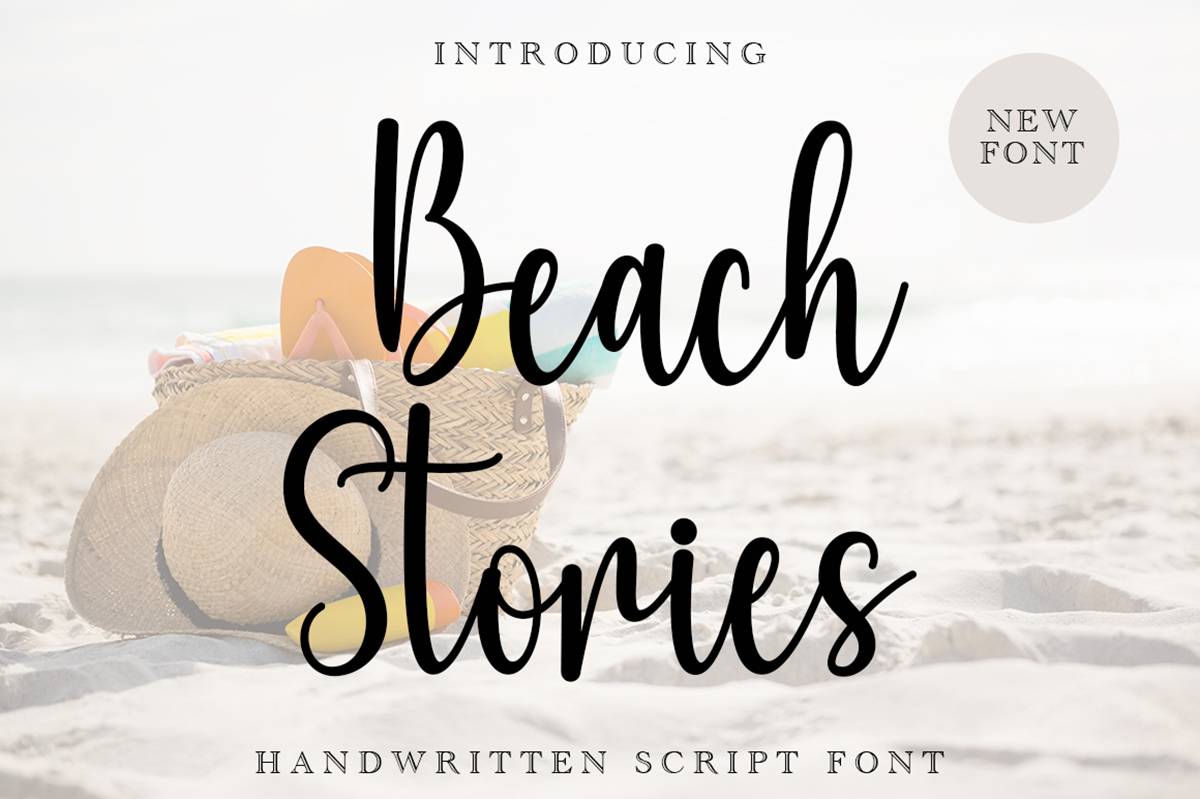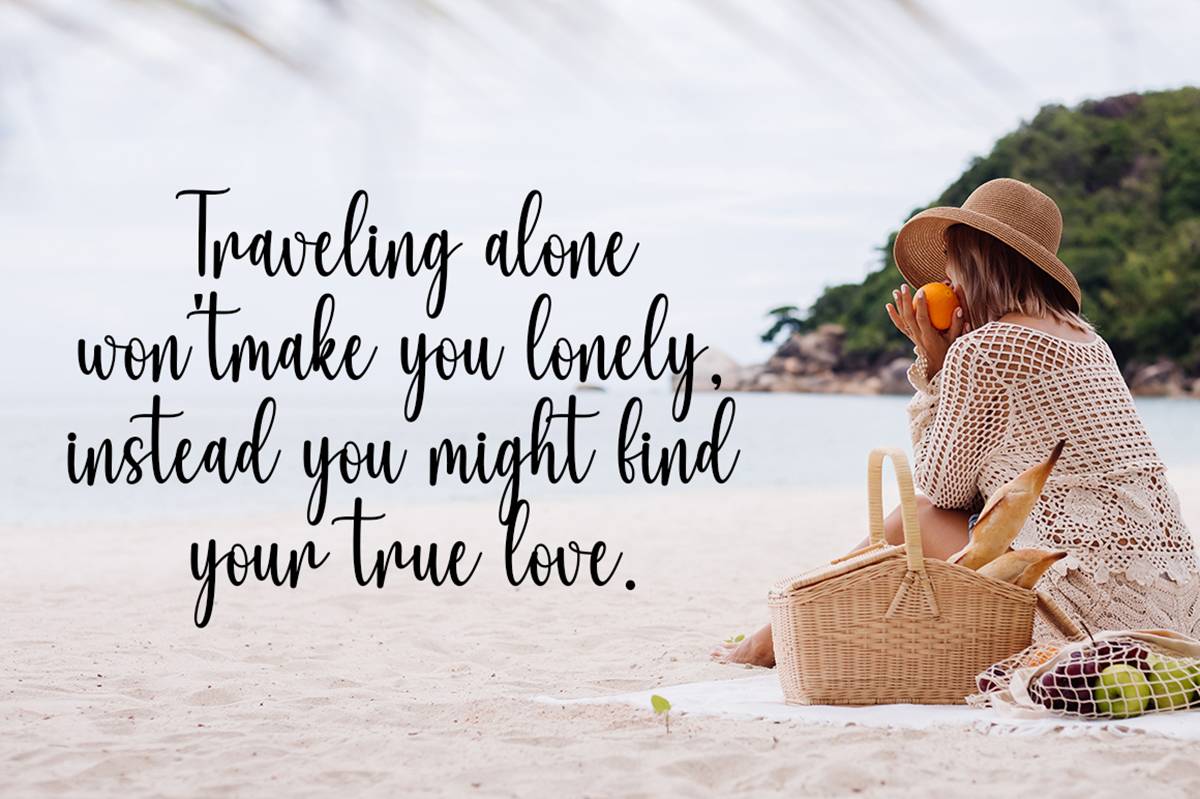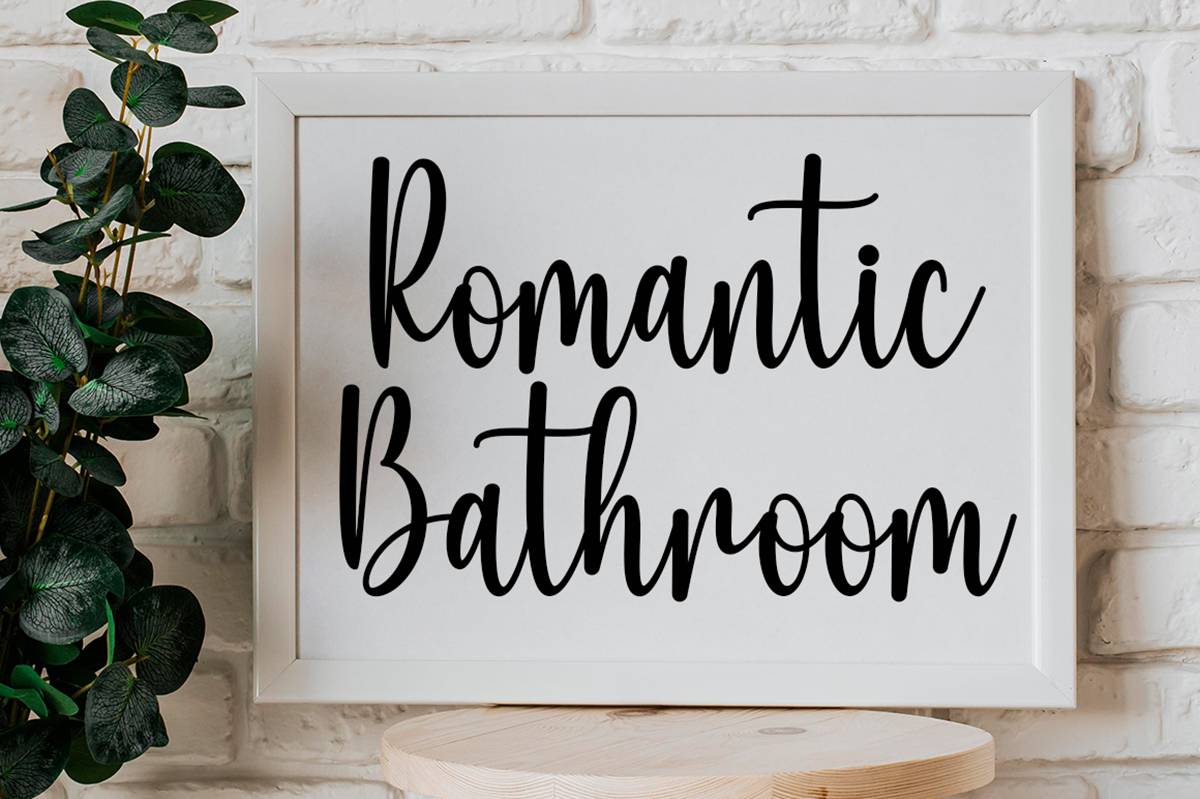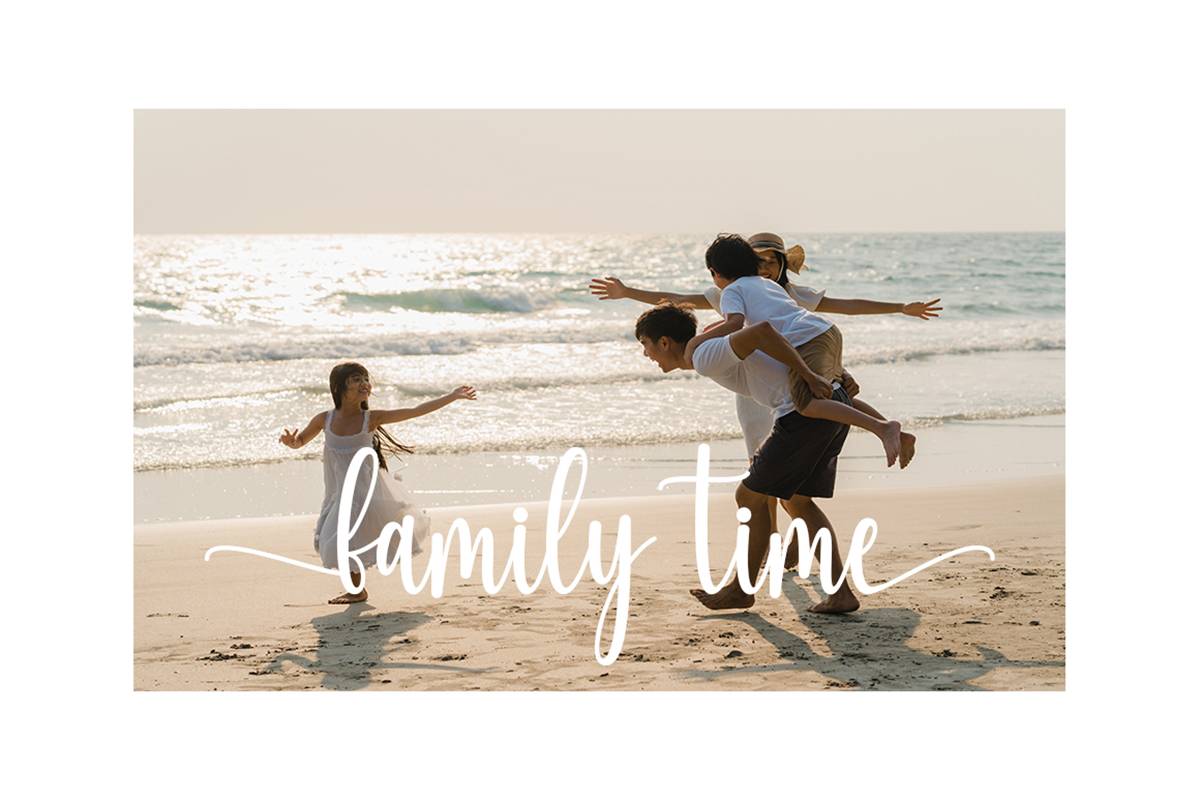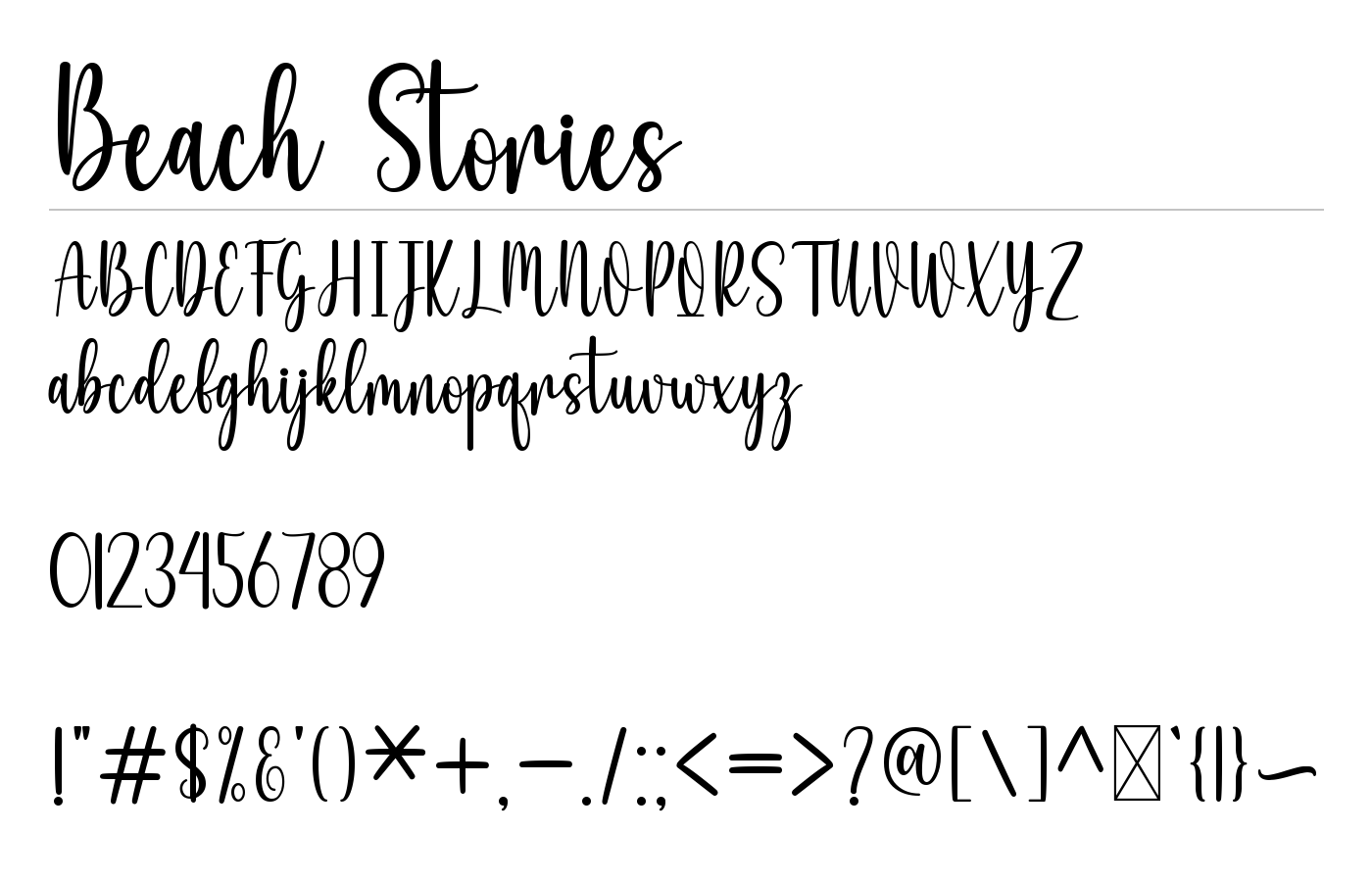
Beach Stories is a playful, handwritten script font with a casual, flowing style that evokes a relaxed, beachy vibe. Its tall, slender letterforms and smooth curves make it perfect for adding a friendly and approachable touch to branding, invitations, or lifestyle projects. This font works especially well for creative headlines and logos where a fresh, personal feel is desired.
Beach Stories Font
About Beach Stories Font
| Font family | Beach Stories Font |
| Designer | Wahyudi |